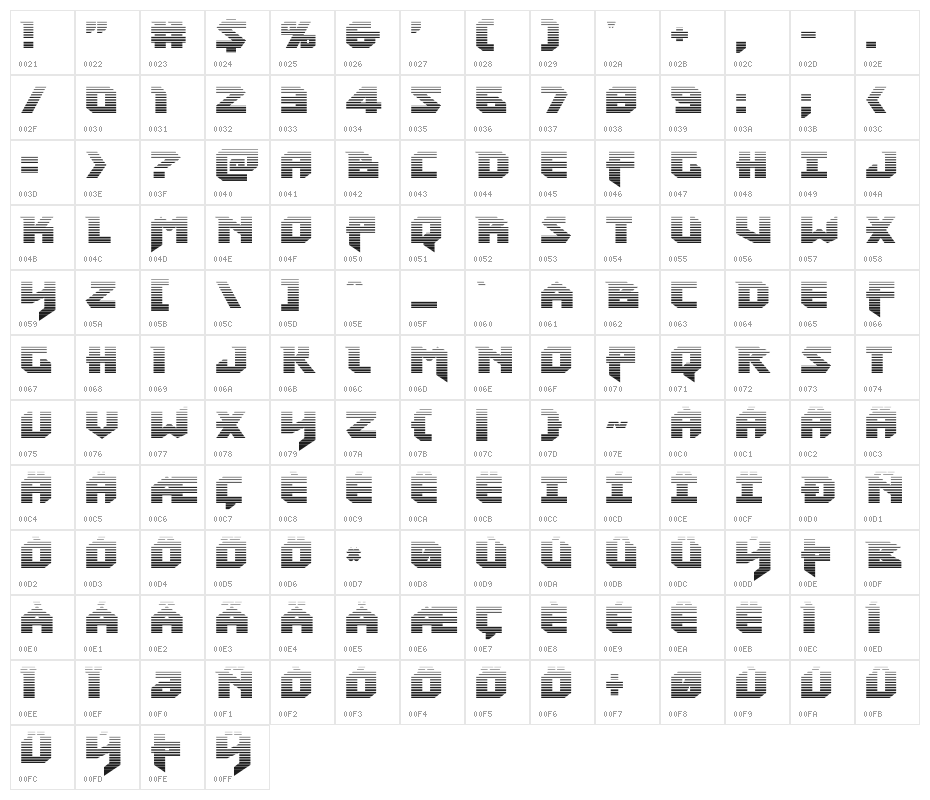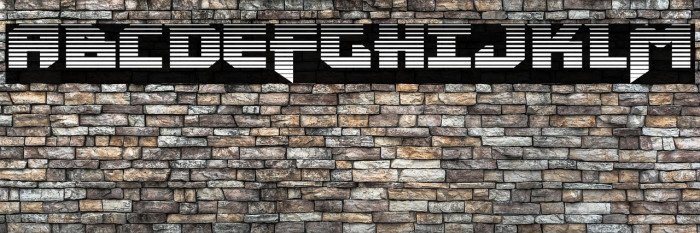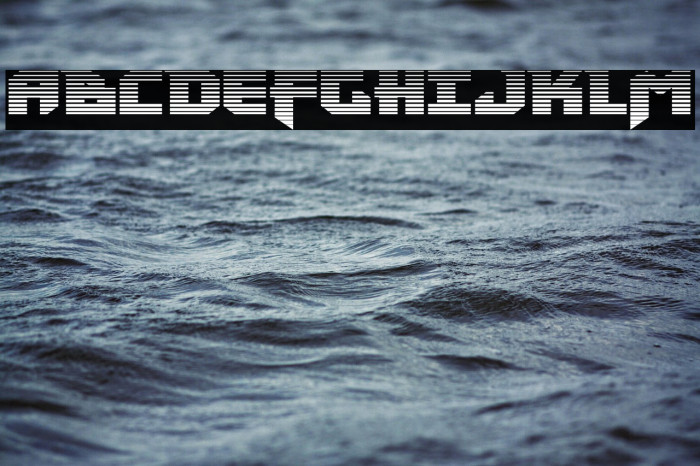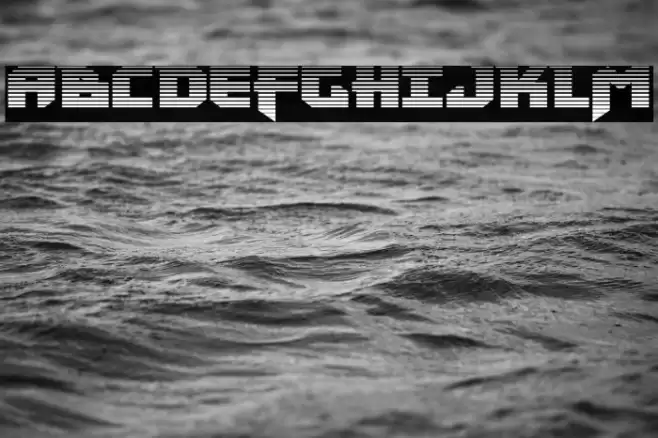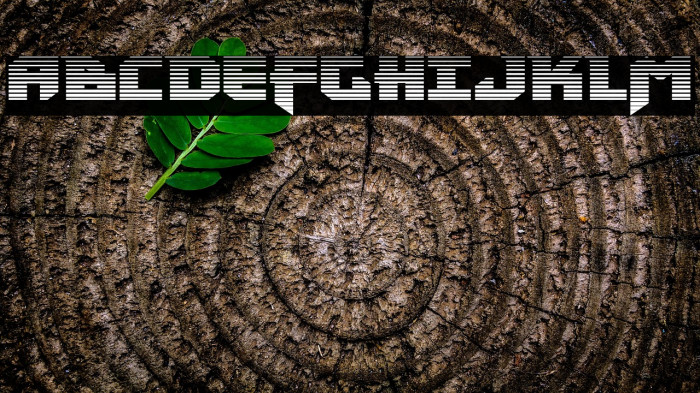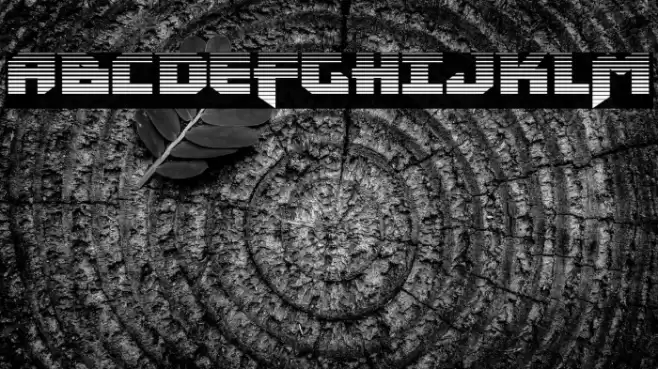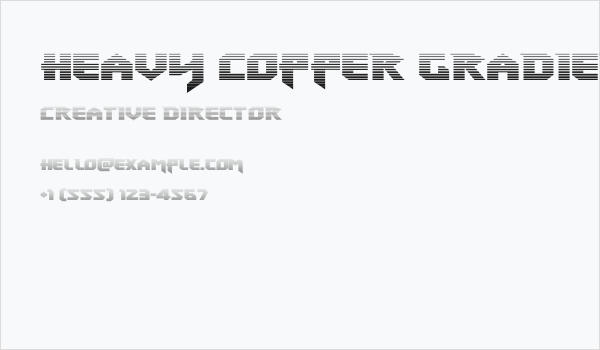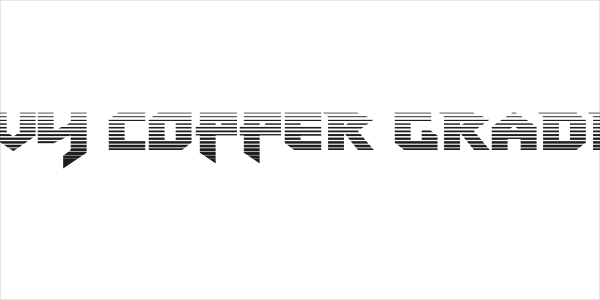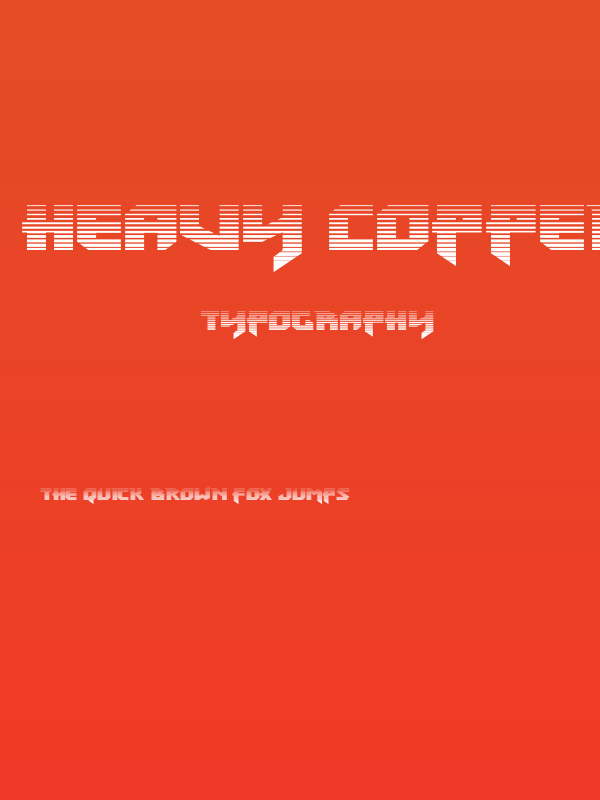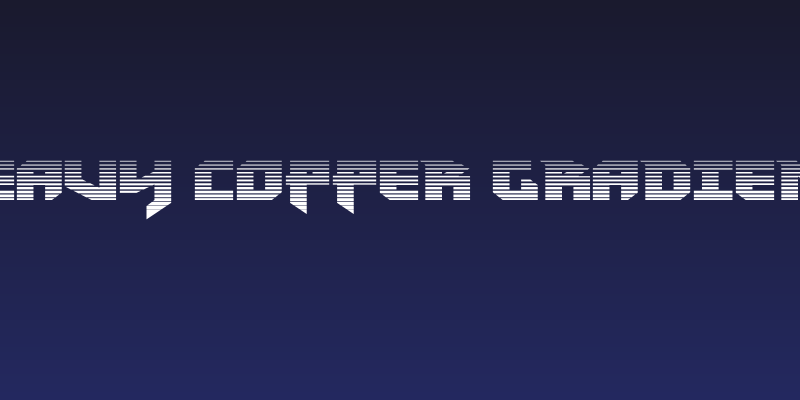
Heavy Copper Gradient Font
Heavy Copper Gradient Description
This font features a bold, futuristic design with a strong geometric structure. Each character is composed of horizontal lines that create a striped effect, giving it a unique and modern appearance. The angular edges and sharp corners contribute to its dynamic and edgy style. The uppercase and lowercase letters maintain a consistent design, while the numerals and special characters follow the same aesthetic, ensuring uniformity across all glyphs. This font is ideal for projects that require a standout, contemporary look.
Proposed ProjectsIdeal for sci-fi themed designs, technology branding, video game titles, and modern posters.